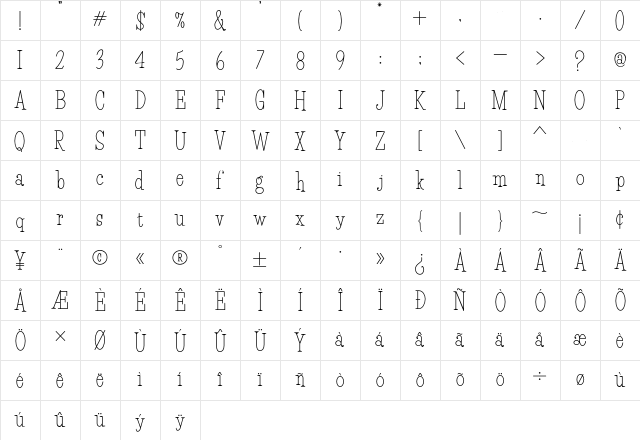
HFF Light Petals Regular Free Font
HFF Light Petals Regular
Foundry: Have Fun with Fonts
Designer: Have Fun with Fonts
HFF Light Petals Family
Design Context for HFF Light Petals
HFF Light Petals is a composed and adaptable typeface that performs quietly and consistently across a wide range of design contexts. Its slender proportions lend an understated elegance to any composition.